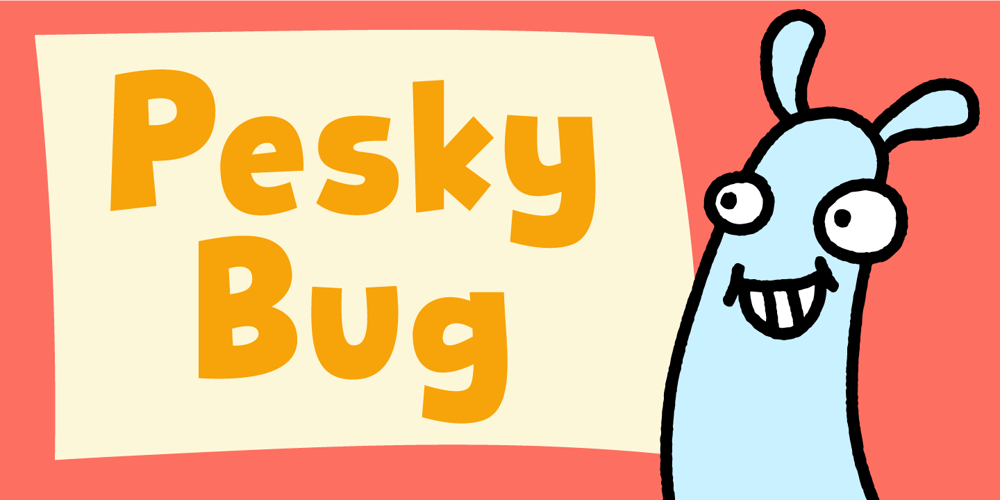
Pesky Bug Font Family was designed by Jakob Fischer and published by PizzaDude.dk. Pesky Bug contains 6 styles and family package options. Pesky Bug is a clean comic and kids font. Initially drawn by hand, but cleaned up digitally, leaving a fresh look – which makes it perfect for anything that has to do with kids products, sports, toys, clothing etc.The x-height, width of strokes and variating baseline are off here and there, and that leaves this active look!